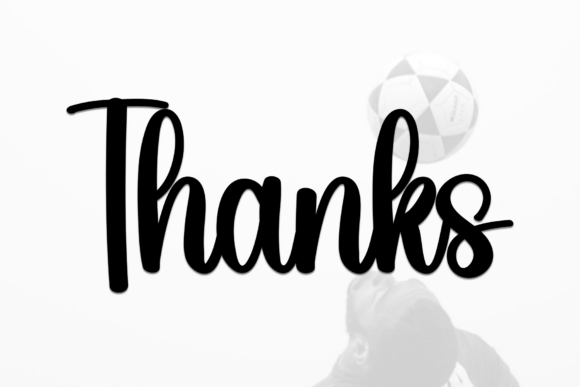
The Art of Creative Expression
Have you ever stared at a blank canvas, unsure of how to bring your vision to life? The blank page can be daunting, but sometimes all it takes is the right tool to spark inspiration. For designers, finding the perfect font can be just the catalyst needed to breathe new life into a project.
Enter Jugling Font, a stylish script font that embodies the essence of artistic flair and contemporary elegance. With its fluid brush strokes and dynamic curves, it captures the essence of hand-painted calligraphy with a modern twist. Whether you’re crafting a logo, designing an invitation, or creating social media graphics, Jugling Font adds a creative and sophisticated touch to any design.
Juggling Font Key Features
Jugling Font Review
Overall, I’m impressed with Jugling Font, but it’s not without its flaws. Here’s my honest take on this font.
- Unique aesthetic: Jugling Font has a quirky, playful feel that’s perfect for creative projects or designs that need a bit of whimsy.
- Good legibility: Despite its unusual design, Jugling Font is easy to read, even at smaller font sizes.
- Customization options: The font comes with a range of weights and styles, making it easy to adapt to different design contexts.
- Limited versatility: While Jugling Font is great for creative projects, it may not be the best choice for formal or professional designs.
- Noisy background: The font’s busy design can make it difficult to read on certain backgrounds or when used in conjunction with other fonts.
- Not ideal for body text: Due to its playful nature, Jugling Font may not be the best choice for large blocks of text, such as body copy.
In conclusion, Jugling Font is a fun, versatile font that’s perfect for creative projects or designs that need a bit of personality. While it may not be the best choice for every design context, it’s definitely worth considering for the right project.
Alternatives to “Jugling Font” for Designers
Jugling Font is a unique font, but it may not be suitable for all design projects. Here are some alternatives that designers can consider:
Great Vibes is a beautiful script font that works well for invitations, wedding designs, and other creative projects. It’s more elegant and refined compared to Jugling Font, making it suitable for high-end designs. When to use: Luxury branding, invitations, wedding designs.
Comparison: Great Vibes is more elegant and refined, while Jugling Font is more playful and quirky.
Alex Brush is a elegant script font that works well for branding, logos, and other design projects. It’s more versatile than Jugling Font, making it suitable for a wide range of design projects. When to use: Branding, logos, creative projects.
Comparison: Alex Brush is more elegant and versatile, while Jugling Font is more playful and quirky.
Dancing Script is a beautiful script font that works well for creative projects, invitations, and wedding designs. It’s more energetic and playful compared to Jugling Font, making it suitable for fun and lively designs. When to use: Creative projects, invitations, wedding designs.